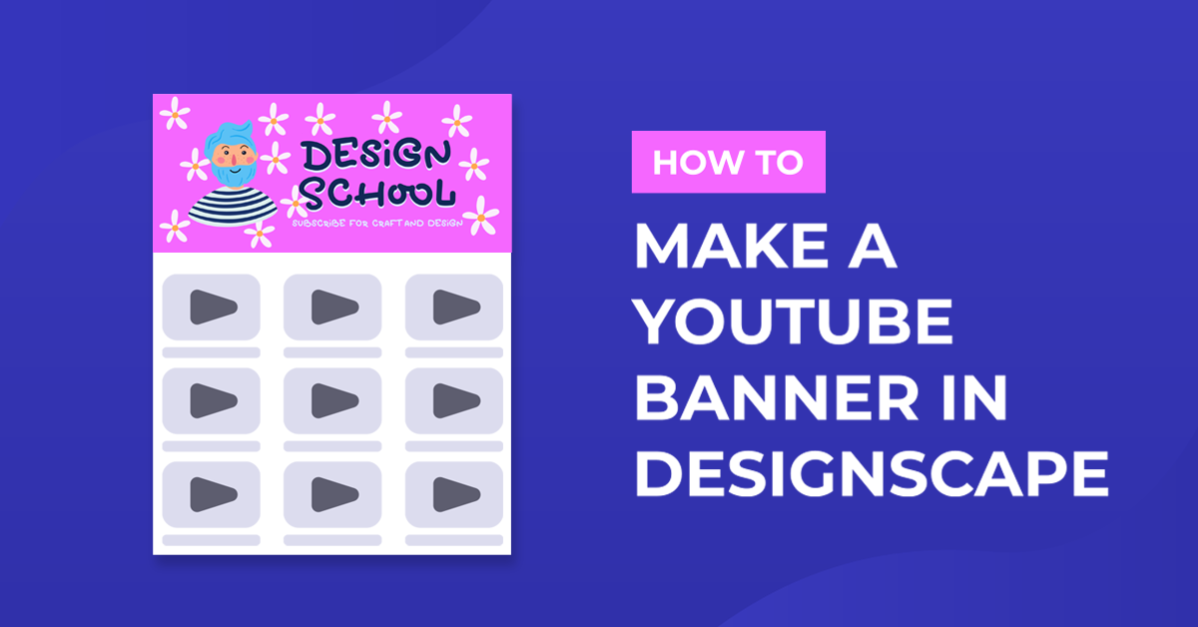
How to Make a YouTube Banner in DesignScape
Learn how you can use DesignScape to make a Youtube Banner for your channel.
Whether you make videos about makeup, crafts, money, or pranks, you'll want an awesome banner for your YouTube channel. This tutorial will go through the steps for creating a YouTube banner in DesignScape that will fit your style and channel.
Before we begin, think about the kind of videos you make and how you want to come across to your audience. You want your audience to get a sense of what your channel is about when they see your banner.
Step 1 - Create a New YouTube Banner Project
First, follow our guide on starting a new project in DesignScape. Use the recommended YouTube banner dimensions of 2560 x 1440 pixels. Your banner should have an aspect ratio of 16:9, and the file size must be under 6MB.How to Make a Youtube Banner in DesignScape 1
Step 2 - Create Safe Area Rectangle
YouTube channel banners are displayed on all devices (TV, desktop, tablet, mobile), but parts of the banner are cut off depending on the device. There is a safe area in the center of the banner that is always seen no matter what device you're on. That safe area is 1546 x 423 pixels. You want to keep your logo and text inside this safe area.
The following image isn't to scale, but it'll help to give you a better understanding of what's viewable across devices.How to Make a Youtube Banner in DesignScape 21
We will create a rectangle to use as a guide while making our banner. You can add rectangles or lines for the rest of the areas if you want.
Select the Rectangle tool (U), change the Fill to none, and pick a Stroke color. Click on the canvas, and enter 1546 for the width and 423 for the height. Then click OK.
Select the Move Tool (V) and click and drag the rectangle until it snaps to the center. You will see a red vertical and horizontal line when the rectangle is in the center of the canvas.
Note: you can lock the safe area layer by clicking the padlock icon in the Layers panel.
Step 3 - Add A Background and Rearrange the Layers
Select a background you like that fits your channel. We chose a rose gold acrylic paint background.
Drag and drop your background file onto the canvas.
Use the Move Tool (V) to resize your background image to cover the whole canvas and move the background if needed.
Move Safe Area Rectangle Layer to the Top
We want the safe area rectangle layer to be at the top so we can see it while creating the banner. Click and drag the rectangle layer to the top of the layers list.
Step 4 - Add Text
Now we will add some text to the banner, such as the channel name and a little saying underneath that describes what you do, what your channel is about, when/how often you upload videos, or a call-to-action phrase.
We used the hand-lettered script font, Freshly Baked, and the spunky font, Toddler Tantrums. You can take a look at our guide on how to import fonts if needed.
Select the Text Tool (T) and pick your font. Open the Color Picker from the top toolbar, choose a color and click OK.
Click on the canvas (outside the rectangle) and enter your channel name. Adjust the font size in the top toolbar as needed.
Select the Move Tool (V) and move the text inside the rectangle.
Add a Drop Shadow if Needed
If your text is a little hard to see, adding a drop shadow can help it stand out.
Select the text layer, right-click and choose Duplicate Layer.
Change the bottom text layer's color to black.
With the Move Tool (V), shift the bottom black text layer to the right and down using the arrow keys.
Right-click on the bottom text layer and select Convert to Smart Object.
With the Smart Object still selected, go to Filter > Blur > Gaussian Blur.
Adjust the Gaussian Blur Radius to your liking and click OK. We used a value of 3.2 px.